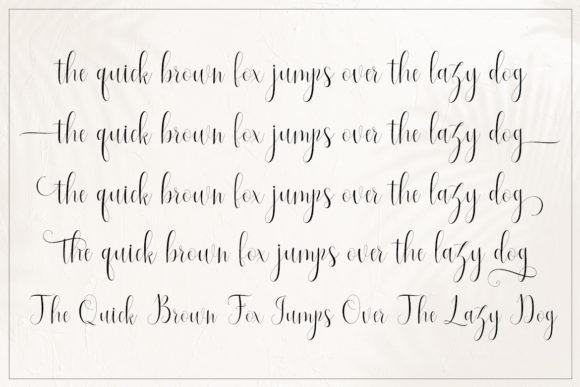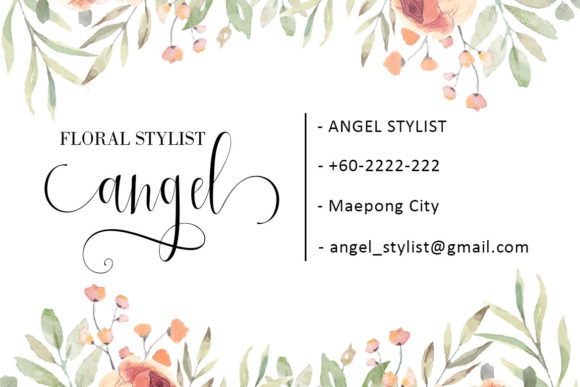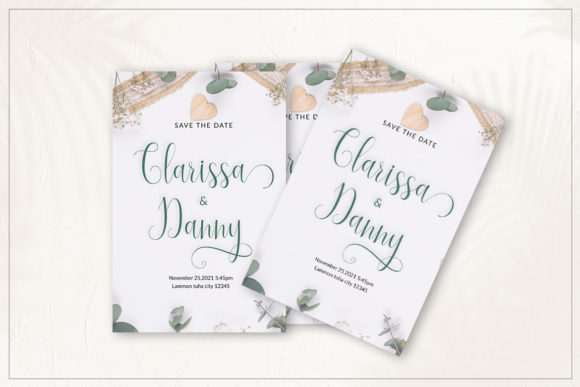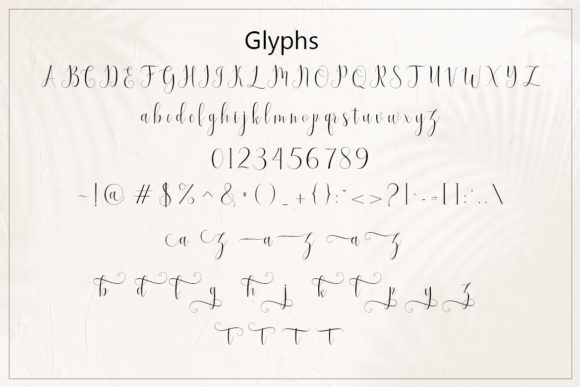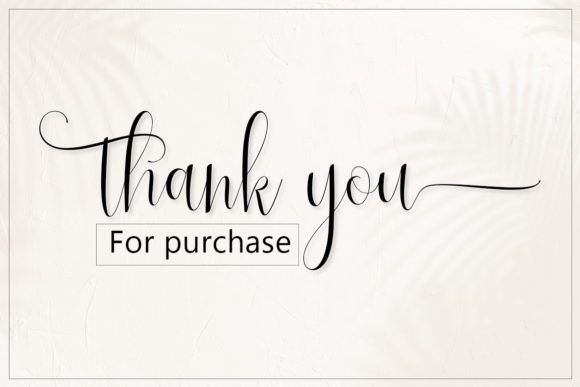
Introducing Centuries Font: A Romantic and Sweet Calligraphy Typeface
Are you a designer or crafter looking for a unique and elegant font to elevate your creative projects? Look no further than Centuries Font, a romantic and sweet calligraphy typeface that is sure to capture your heart. With its flowing characters that dance along the baseline, this font is perfect for a variety of applications, from logos and wedding invitations to headings and more.
What Makes Centuries Font Special?
Centuries Font is a beautifully crafted calligraphy typeface that exudes romance and sweetness. Its unique characters are designed to flow along the baseline, creating a sense of movement and fluidity that is sure to add a touch of elegance to any project. Whether you’re creating a logo, wedding invitation, or heading, this font is sure to make your design stand out.
One of the best things about Centuries Font is its versatility. This font can be used for a wide range of purposes, including:
- Logos: Create a unique and memorable logo for your business or brand with Centuries Font.
- Wedding Invitations: Add a touch of romance and elegance to your wedding invitations with this beautiful calligraphy font.
- Headings: Use Centuries Font to create stunning headings for your website, blog, or marketing materials.
- And More: This font can be used for any project that requires a touch of elegance and sophistication.
Centuries Font is PUA (Private Use Area) encoded, which means that you can access all of the glyphs and swashes with ease. This makes it easy to customize your text and add unique touches to your design. With PUA encoding, you can:
- Access a wide range of glyphs and swashes to add variety to your text.
- Easily customize your text to fit your design needs.
- Create unique and complex designs with ease.
Why Choose Centuries Font?
There are many fonts available that claim to be elegant and sophisticated, but Centuries Font stands out from the rest. Here are just a few reasons why you should choose Centuries Font for your next project:
- Unique and elegant design: Centuries Font has a unique and elegant design that is sure to add a touch of sophistication to any project.
- Versatility: This font can be used for a wide range of purposes, making it a great addition to any designer’s toolkit.
- Easy to use: With PUA encoding, you can easily access all of the glyphs and swashes, making it easy to customize your text.
- High-quality: Centuries Font is a high-quality font that is designed to deliver exceptional results.
Tips for Using Centuries Font
Here are a few tips for using Centuries Font in your designs:
- Use it sparingly: Centuries Font is a bold and elegant font, so use it sparingly to add emphasis to your design.
- Pair it with other fonts: Experiment with pairing Centuries Font with other fonts to create a unique and interesting design.
- Adjust the size and color: Adjust the size and color of Centuries Font to fit your design needs.
- Experiment with glyphs and swashes: Take advantage of the PUA encoding and experiment with different glyphs and swashes to add variety to your text.